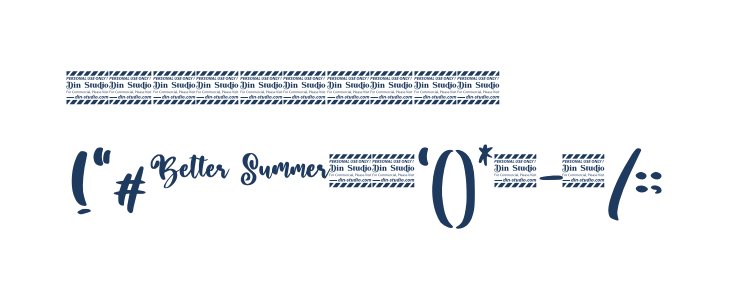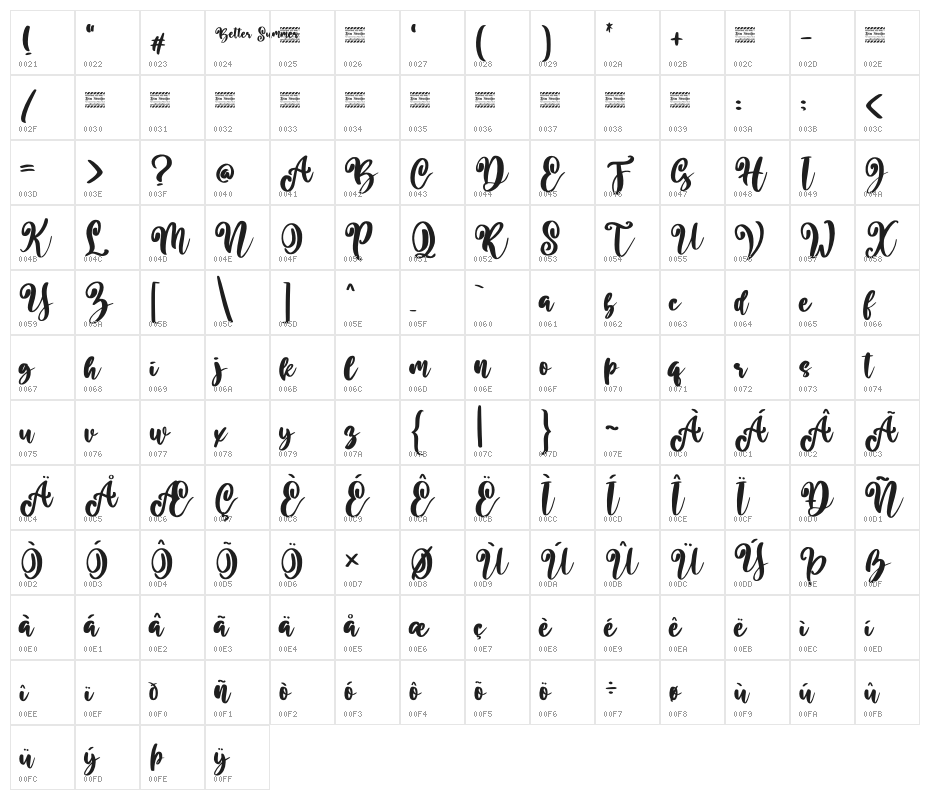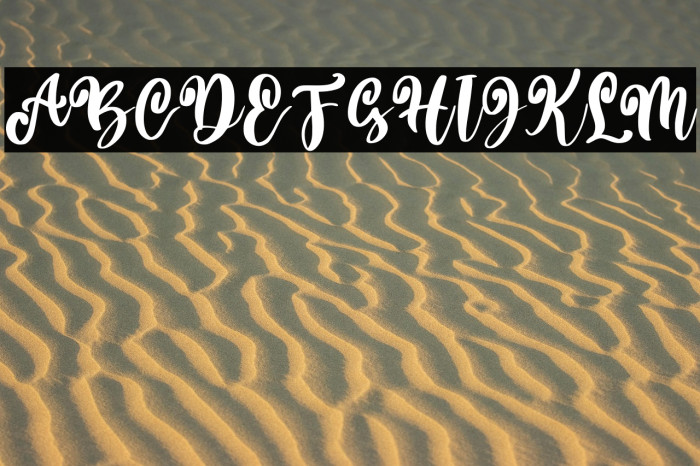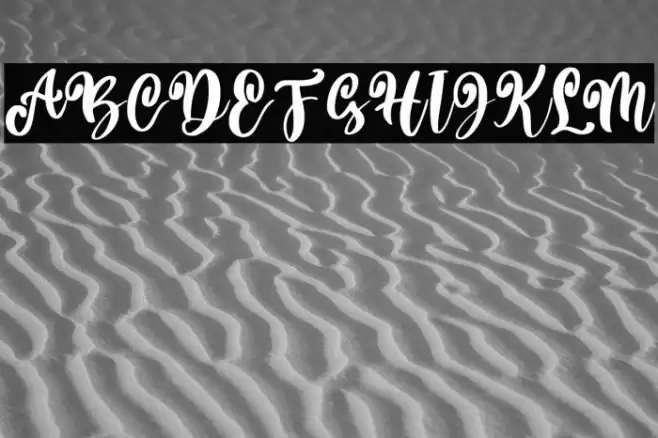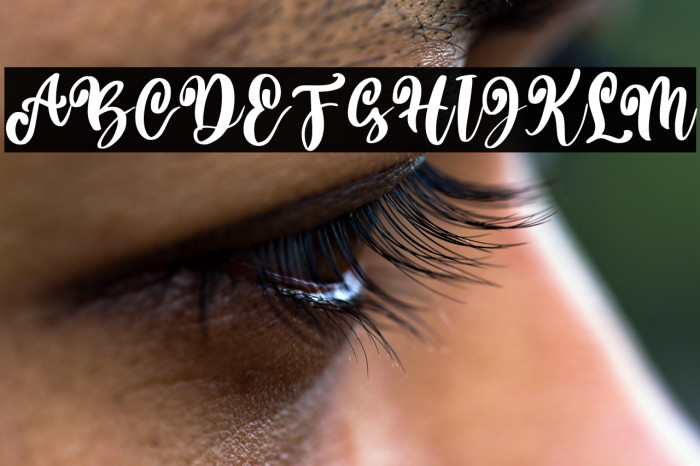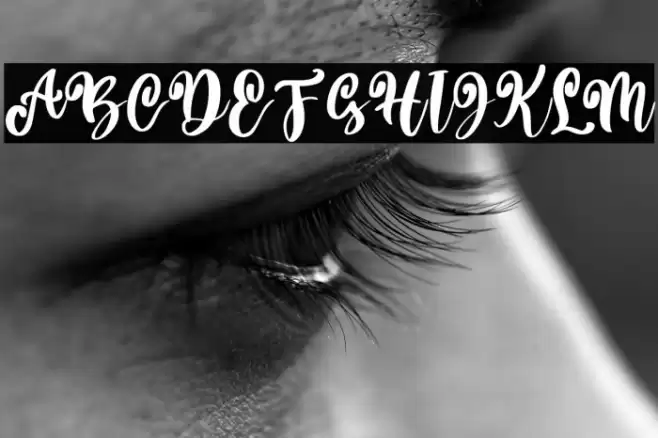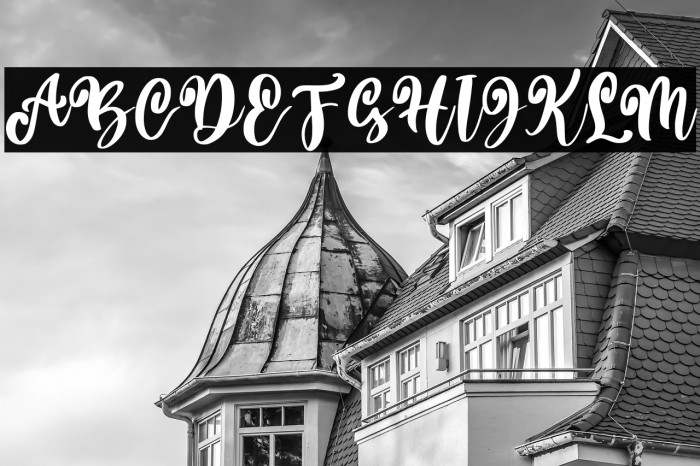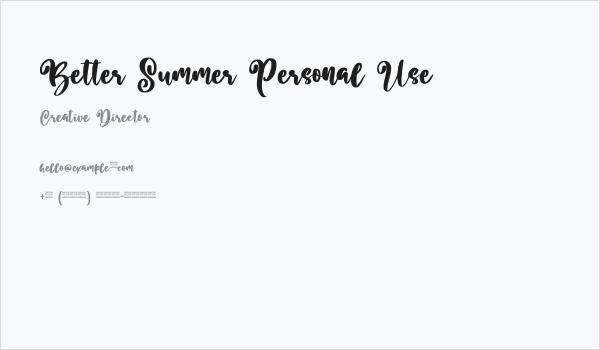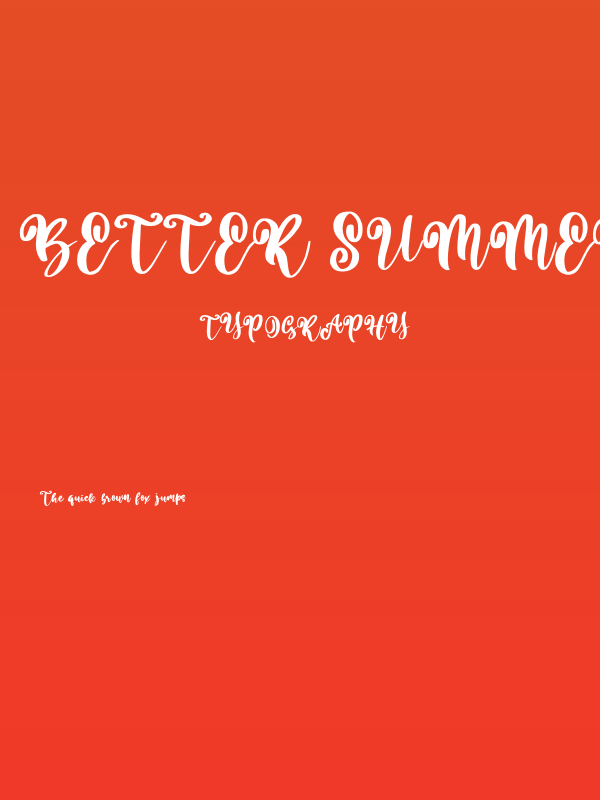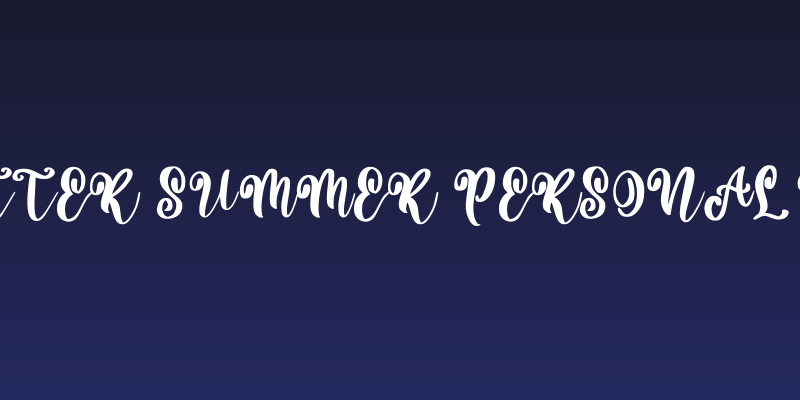
Better Summer Personal Use Font
Better Summer Personal Use Description
This font features a bold, flowing script style that exudes a sense of elegance and playfulness. The characters are crafted with smooth, sweeping curves and a consistent stroke width, giving it a cohesive and harmonious appearance. The uppercase letters are particularly ornate, with intricate loops and flourishes that add a touch of sophistication. The lowercase letters maintain a similar style, with a slightly more relaxed and informal feel. The overall design is both decorative and legible, making it suitable for a variety of creative applications. The special characters complement the alphabet with matching stylistic elements, enhancing the font's versatility.
| Proposed Projects | Ideal for wedding invitations, branding, greeting cards, and other creative projects that require a touch of elegance and personality. |